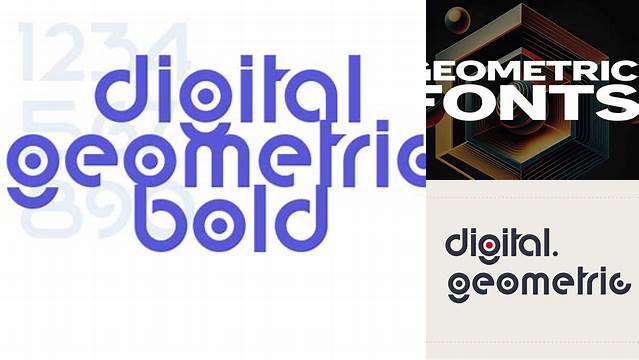
Free Digital Geometric Bold Fonts: Download Now!
Hey guys! Are you on the hunt for some awesome digital geometric bold fonts? Look no further! I've compiled a list of resources where you can snag these beauties for free. Whether you're designing a killer logo, revamping your website, or just need a font that screams modern and edgy, a geometric bold font can seriously elevate your design game. These fonts are characterized by their clean lines, sharp angles, and overall futuristic vibe, making them perfect for projects that need a touch of sophistication and techy flair. So, buckle up, and let’s dive into the world of freely available digital geometric bold fonts!
What Makes a Font "Geometric?"
Before we jump into the free downloads, let's quickly define what makes a font "geometric." A geometric font is characterized by its reliance on basic geometric shapes – circles, squares, and triangles – in its construction. Think of fonts like Futura or Avant Garde; they're the epitome of geometric design. These fonts often exude a sense of minimalism and precision, making them incredibly versatile for various design applications. The cleanliness and simplicity of geometric fonts make them highly legible, even in bold weights. This is crucial, especially when you're aiming for a digital presence where readability across different screens is paramount. When searching for a digital geometric bold font, keep an eye out for those that maintain their clarity and structure even at larger sizes – that’s a hallmark of well-designed geometric typeface. The strength of a geometric font lies in its ability to convey both strength and sophistication, a perfect blend for any modern design project. So, knowing the key characteristics will help you find the best digital geometric bold font for your next project.
Best Uses for Digital Geometric Bold Fonts
So, you've got your hands on a digital geometric bold font. Now what? These fonts aren't just pretty faces; they're workhorses that can add serious impact to a variety of projects. Think logos, headlines, posters, and even website body text (although use sparingly for body text to avoid overwhelming your readers!). The bold weight ensures your message stands out, while the geometric design adds a touch of modern sophistication. For example, a tech startup might use a digital geometric bold font for its logo to convey innovation and precision. A fashion brand could use it for promotional materials to exude a chic, contemporary vibe. Even event posters can benefit from the clean, eye-catching nature of these fonts. Remember to consider the overall tone and message of your project when choosing the right font. A geometric bold font might not be the best choice for a project that requires a softer, more whimsical feel. However, if you’re aiming for something modern, impactful, and visually striking, you’ve found your match. Experiment with different sizes, weights, and colors to see how the font interacts with your design. A digital geometric bold font is a versatile tool, and with a little creativity, you can unlock its full potential.
Free vs. Premium Geometric Bold Fonts: What’s the Catch?
Okay, let's talk about the elephant in the room: free versus premium fonts. While free digital geometric bold fonts are amazing for budget-conscious designers (or anyone who loves a good deal!), it’s essential to understand the potential differences. Premium fonts often boast a wider range of weights, styles, and glyphs (those extra characters and symbols). They’re also typically more refined in terms of kerning (the spacing between letters) and overall design quality. However, that doesn’t mean free fonts are inherently bad! Many talented designers and foundries offer high-quality free fonts as a way to showcase their work or give back to the design community. The key is to do your research and carefully evaluate the font before using it in a critical project. Check for things like consistent letterforms, proper kerning, and a full character set. Also, be sure to read the license agreement to understand how you can use the font. Some free fonts may only be licensed for personal use, while others allow commercial use. By being diligent and discerning, you can find fantastic digital geometric bold fonts without breaking the bank. Just remember to always credit the designer or foundry when required!
Finding Inspiration: Design Examples Using Geometric Fonts
Need a little spark of inspiration before you start using your new digital geometric bold font? Let's take a look at some design examples that showcase the power of geometric typefaces. Think about the logos of brands like Adidas or Beats by Dre. They both utilize clean, geometric fonts to convey a sense of modernity and innovation. Or consider the posters for movies like "Interstellar" or "Arrival." These posters often use bold, geometric fonts to create a futuristic and impactful visual. Even websites can benefit from the use of geometric fonts. Many modern websites use geometric fonts for headlines and navigation menus to create a clean and user-friendly experience. The key is to use the font strategically and in a way that complements the overall design. Don't be afraid to experiment with different sizes, weights, and colors to see how the font interacts with your design. Look at how other designers are using digital geometric bold fonts and see if you can adapt their ideas to your own projects. Inspiration is all around you – from logos and posters to websites and magazines. By studying these examples, you can gain a better understanding of how to use geometric fonts effectively and create stunning designs.
Pairing Geometric Fonts with Other Typefaces
One of the keys to using digital geometric bold fonts effectively is knowing how to pair them with other typefaces. While a geometric bold font can be stunning on its own, it often needs a complementary font to create a balanced and harmonious design. A good rule of thumb is to pair a geometric font with a font that has contrasting characteristics. For example, you could pair a bold geometric font with a classic serif font like Times New Roman or Garamond. The contrast between the clean, modern lines of the geometric font and the traditional, elegant curves of the serif font can create a visually appealing and sophisticated look. Alternatively, you could pair a geometric font with a more humanist sans-serif font like Open Sans or Lato. These fonts have a slightly softer and more organic feel than geometric fonts, which can help to balance out the boldness and rigidity of the geometric typeface. When choosing fonts to pair with your digital geometric bold font, consider the overall tone and message of your project. Do you want to create a sense of sophistication and elegance? Or are you aiming for something more modern and playful? The fonts you choose should reflect the overall aesthetic of your design. Experiment with different font pairings until you find something that feels right. There are many online resources that can help you find complementary fonts, such as FontPair and Typewolf. Don't be afraid to try new things and push the boundaries of typography. With a little practice, you'll be able to master the art of font pairing and create stunning designs that showcase the beauty of digital geometric bold fonts.
Maintaining Readability with Bold Geometric Fonts
While digital geometric bold fonts are great for making a statement, it’s crucial to ensure they don’t compromise readability. Overusing bold fonts can actually make text harder to read, especially in large blocks of text. Think about it – a wall of bold text can be overwhelming and tiring for the eyes. So, how do you strike the right balance? Use bold fonts strategically. Reserve them for headlines, subheadings, and short snippets of text that you want to emphasize. For body text, consider using a regular or light weight of the same geometric font, or pairing the bold font with a more readable typeface. Pay attention to the size and spacing of the text. Make sure the font is large enough to be easily read, and that there's enough space between the letters, words, and lines. Adjust the kerning and tracking to improve the overall legibility of the text. Consider the contrast between the text and the background. Make sure there's enough contrast so that the text stands out clearly. Avoid using dark text on dark backgrounds, or light text on light backgrounds. Experiment with different colors and backgrounds to find a combination that works well. Remember, the goal is to make your text as easy as possible to read. While digital geometric bold fonts can add a touch of style and sophistication, they should never come at the expense of readability. By following these tips, you can ensure that your designs are both visually appealing and easy to understand.